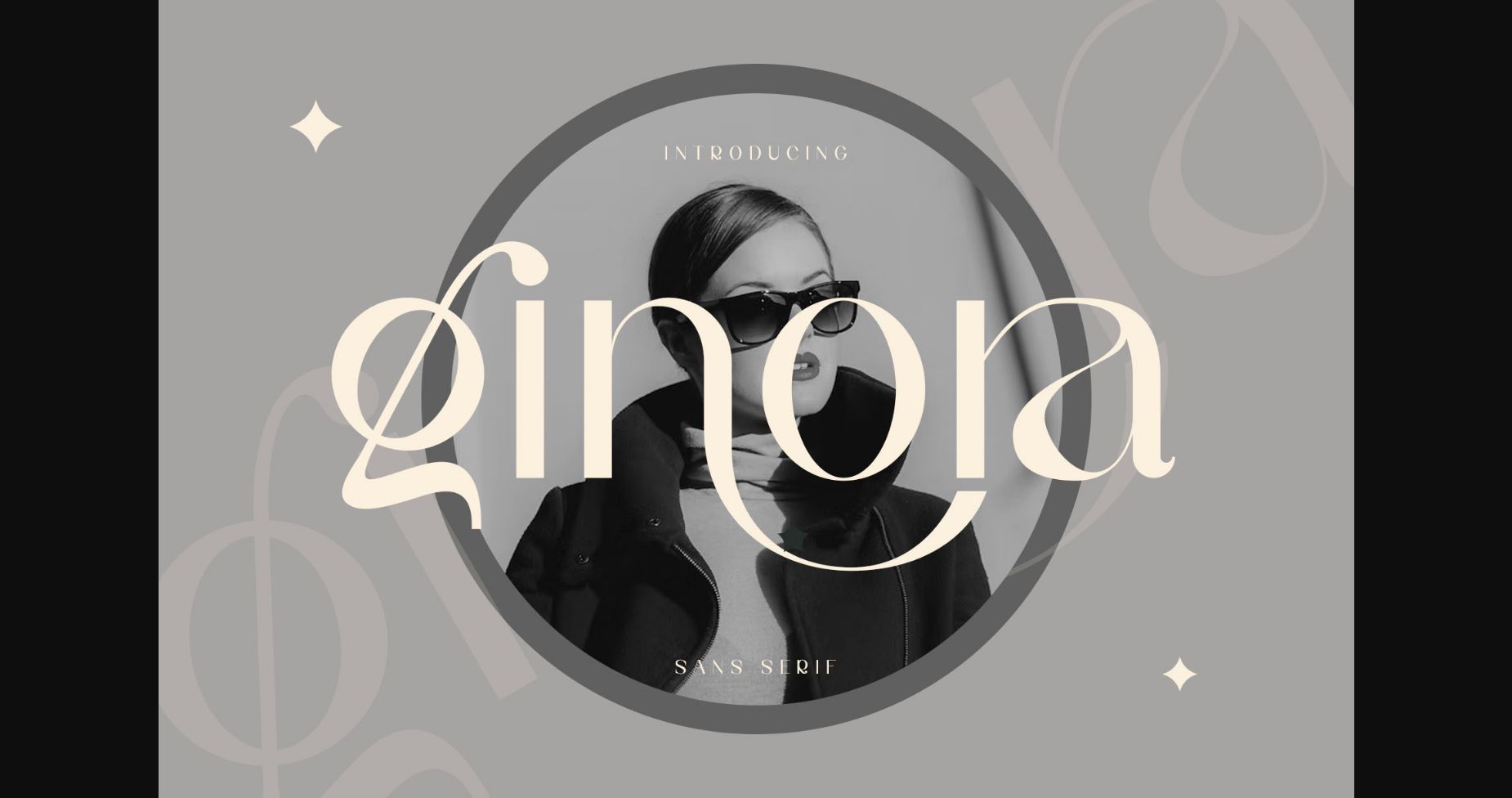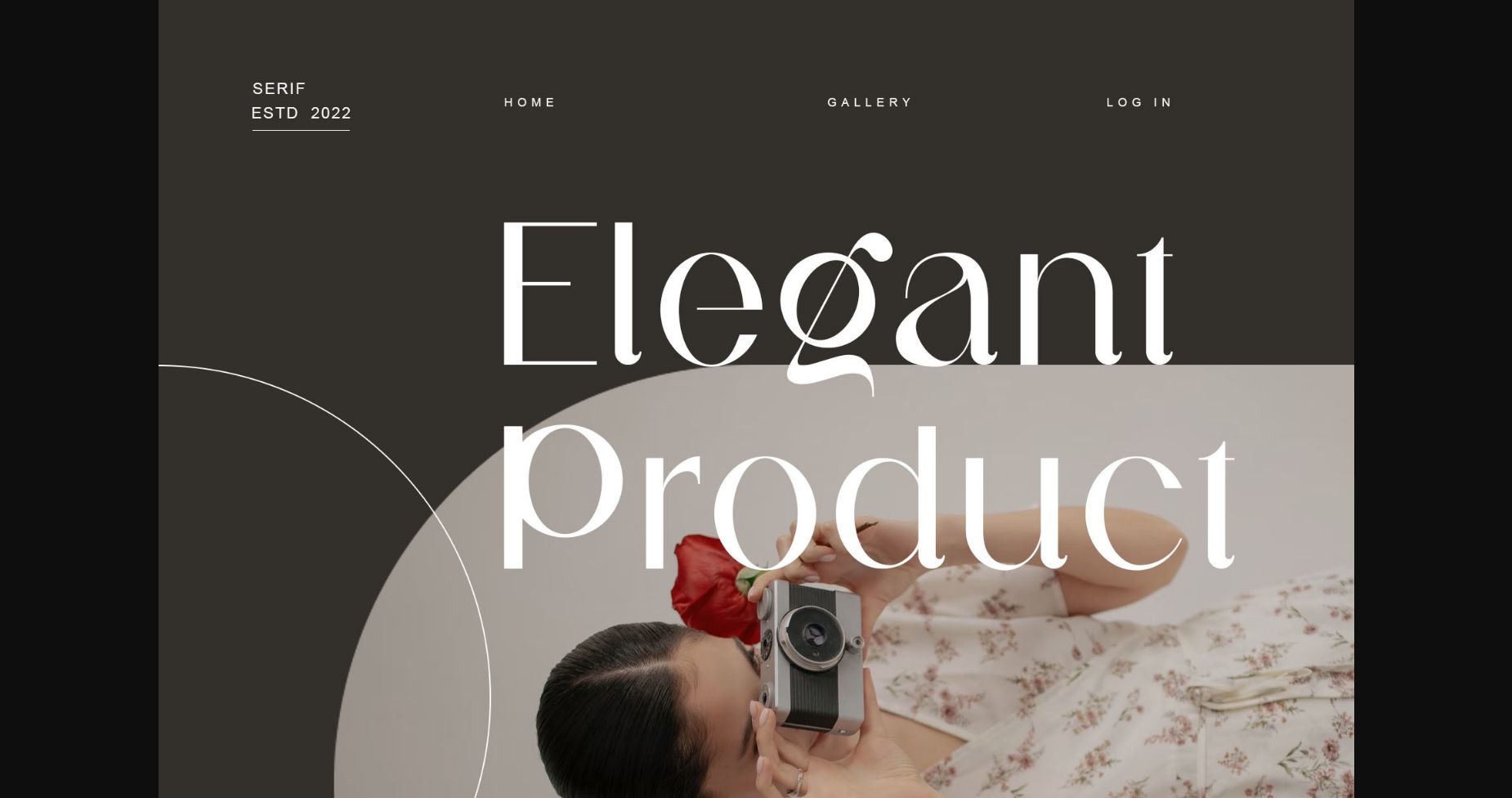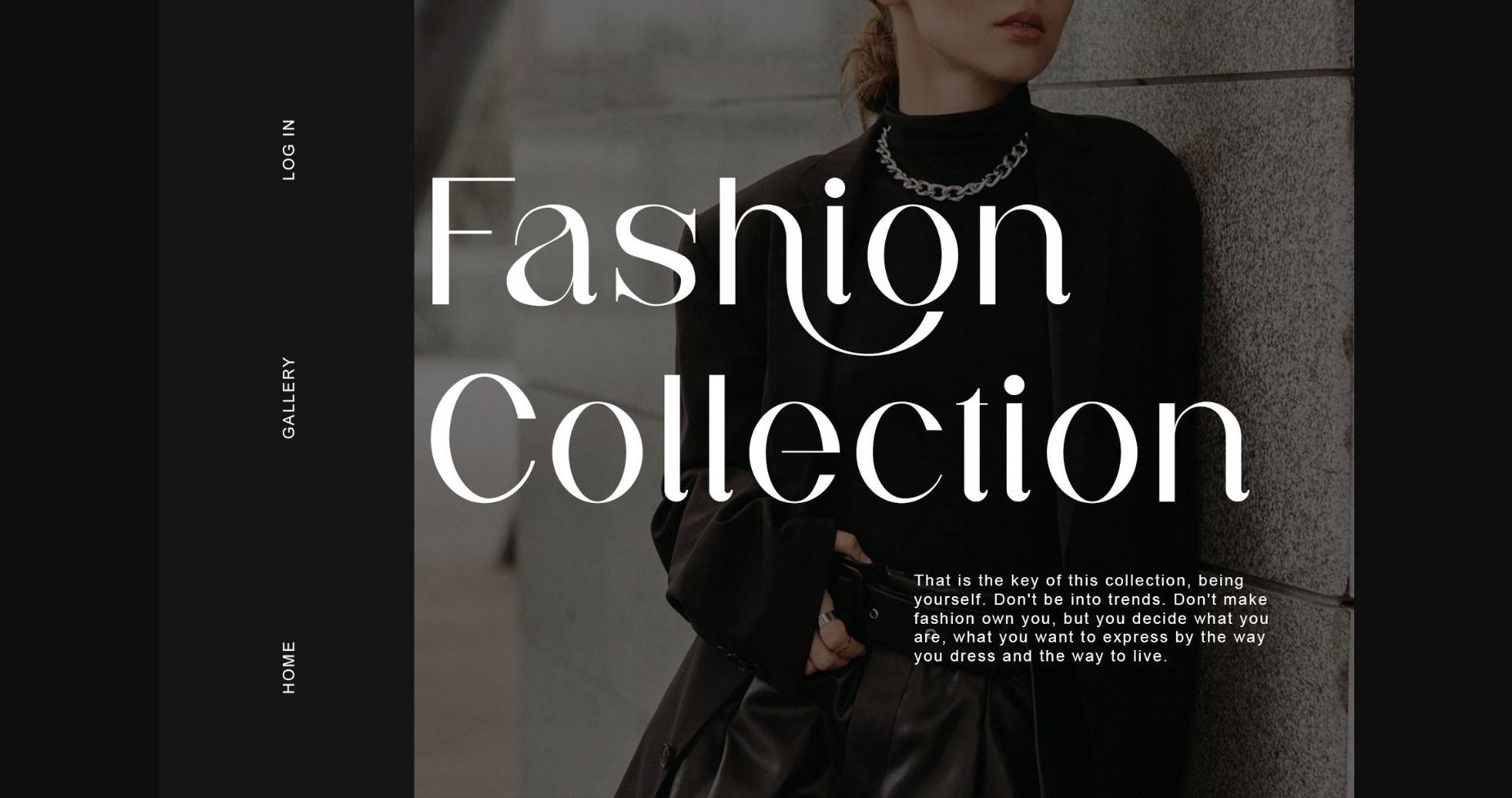
About Ginora Font
Ginora is an elegant and classy sans-serif typeface. This font is both modern and nostalgic and works great for logos, magazines, and social media. Already matched up and ready to be used for your next design! For those of you who need a touch of elegance, style, class, and modernity for your designs, this font was created for you!